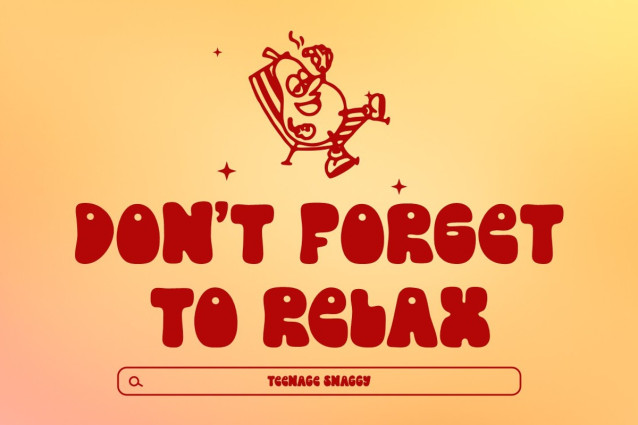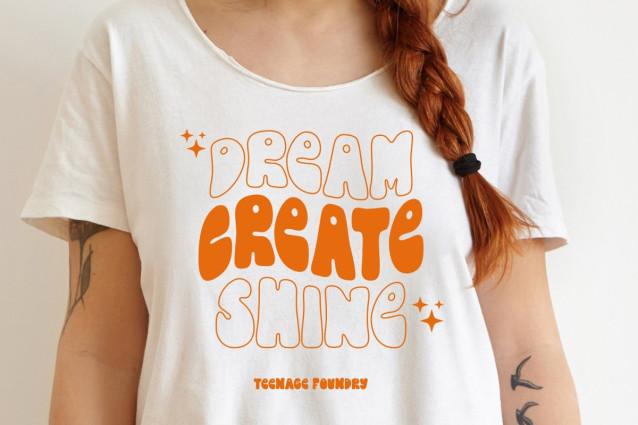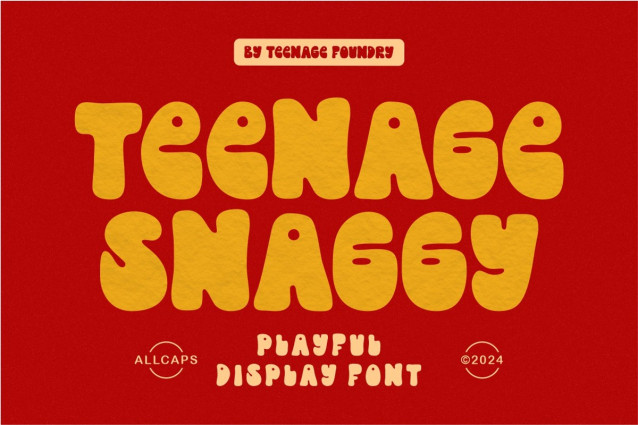
Teenage Snaggy Font
Teenage Snaggy Font This font is incredibly versatile and can be used for a range of design projects, including posters, album covers, branding, and more. Its groovy style gives it a unique character that’s sure to make an impact.